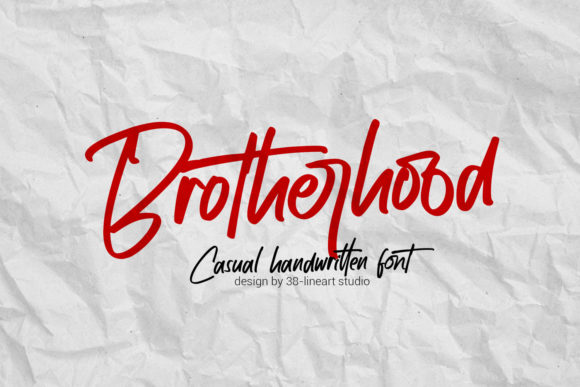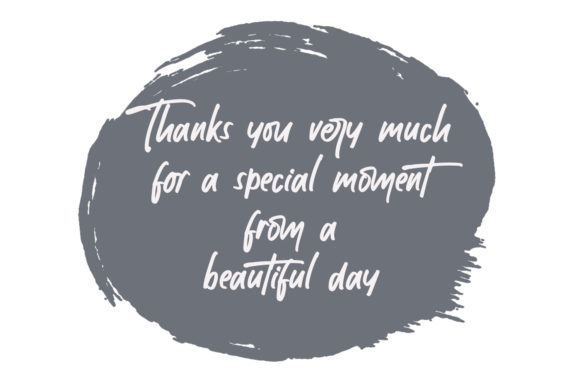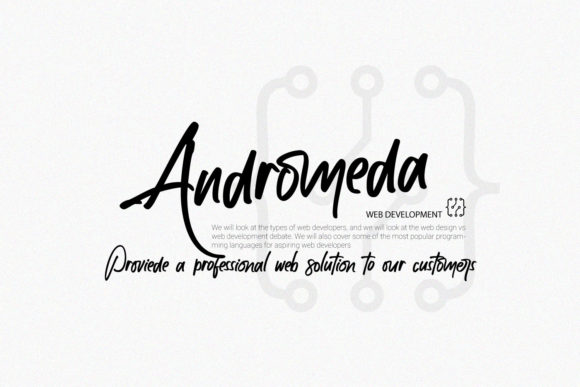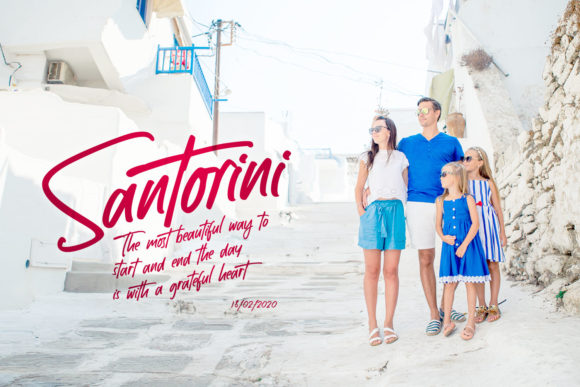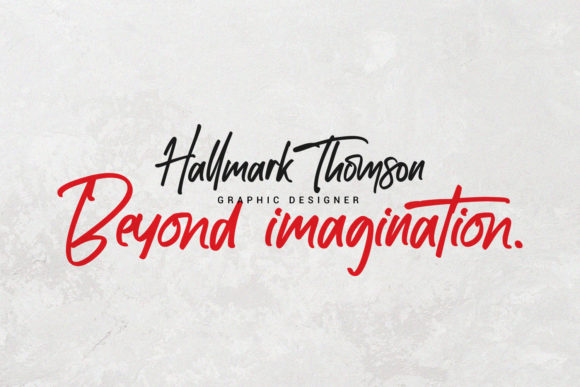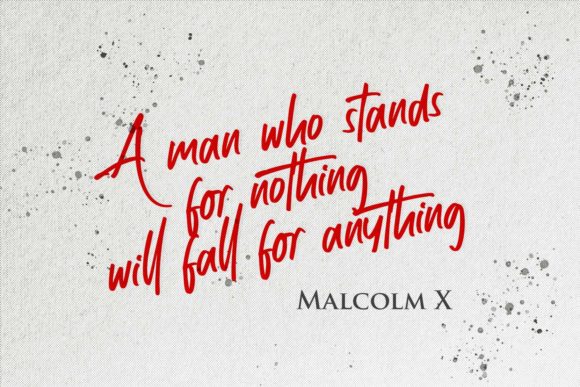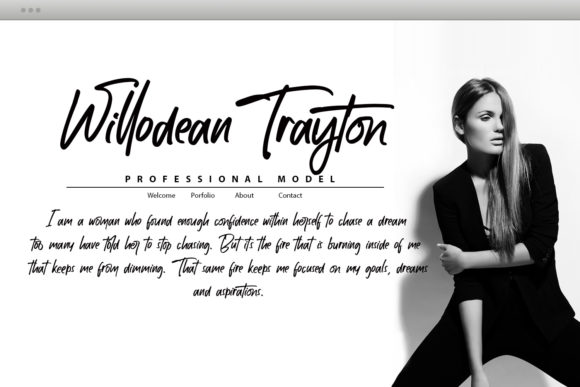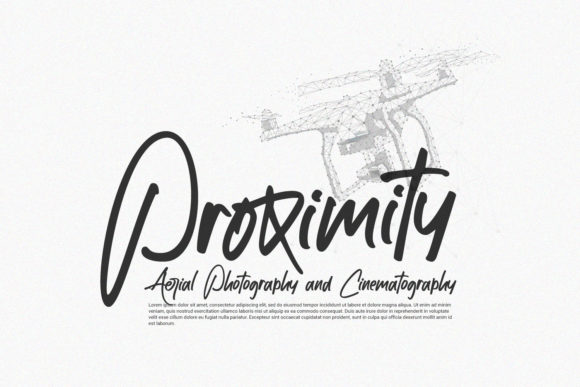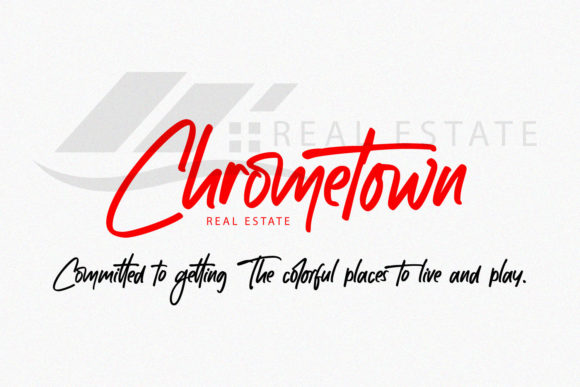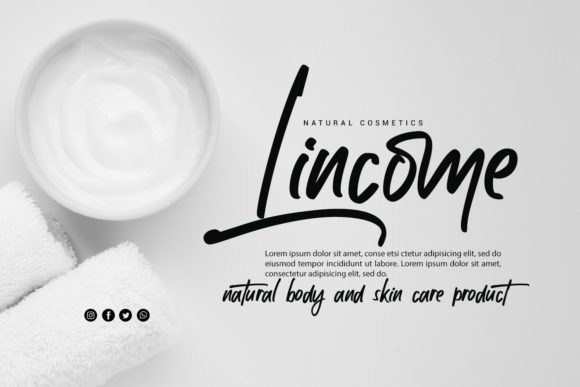
Brotherhood Font
About Brotherhood Font
Brotherhood is a bold and fun script with a playful feel. Use it to elevate any design project to the highest level!